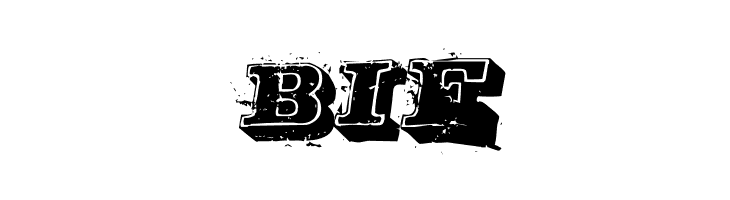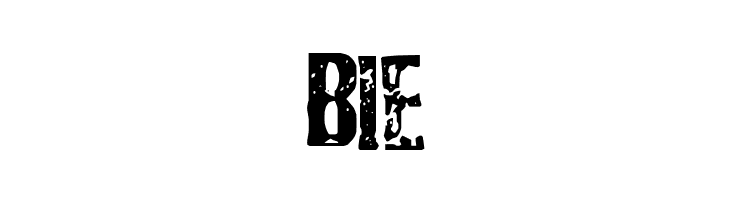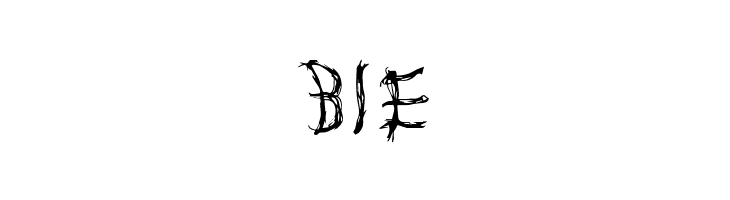
A bold, high-contrast font with modern serifs and elegant flourishes.
A decorative, distressed font with a playful, hand-drawn style.
A bold, playful font with a unique dotted texture, ideal for eye-catching designs.
A bold, distressed font with a grunge texture and 3D shadow effect.
A chaotic, vine-like decorative font with jagged, intricate strokes.
A bold, distressed font with a grunge aesthetic, perfect for edgy designs.
A distressed, grungy font with bold, textured characters.
A distressed, grunge-style font with bold, rugged characters.